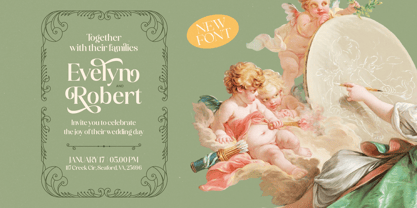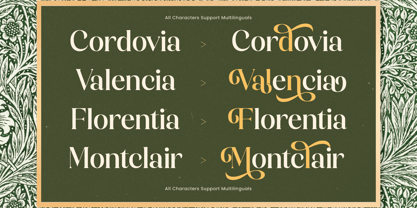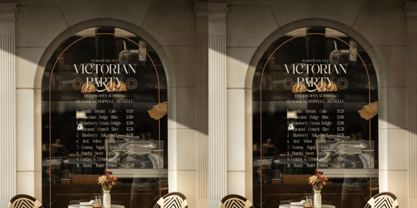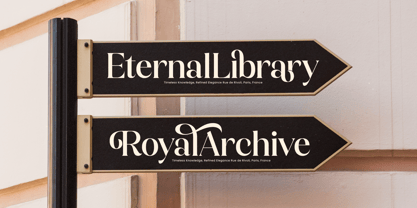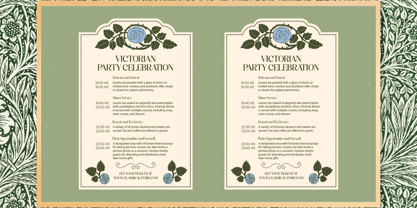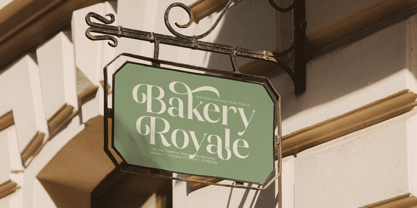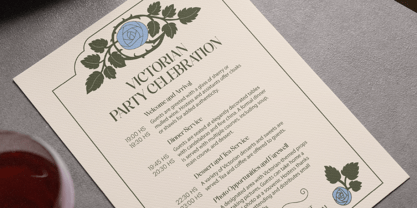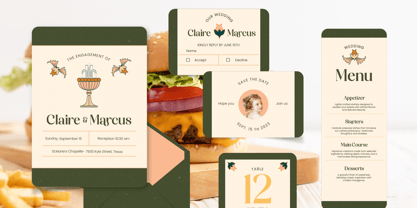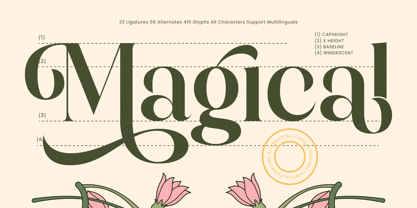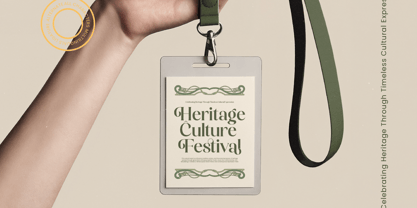
Magical Qardin
by Timelesstype Studio
The Magical Qardin Font Family was designed by Heru Utama Putra and published by Timelesstype Studio. Magical Qardin contains 2 styles and family package options. More about this family
Magical Qardin is a refined decorative serif crafted with elegant curves, ornamental swashes, and sophisticated typographic detail, offering 23 ligatures, 66 alternates, and 419 glyphs for complete creative flexibility. Designed for luxury branding, editorial layouts, boutique packaging, logo design, and artistic display projects, this typeface blends classical serif structure with graceful decorative flourishes, delivering a timeless aesthetic perfect for designers seeking a premium, expressive serif with high-end visual character.